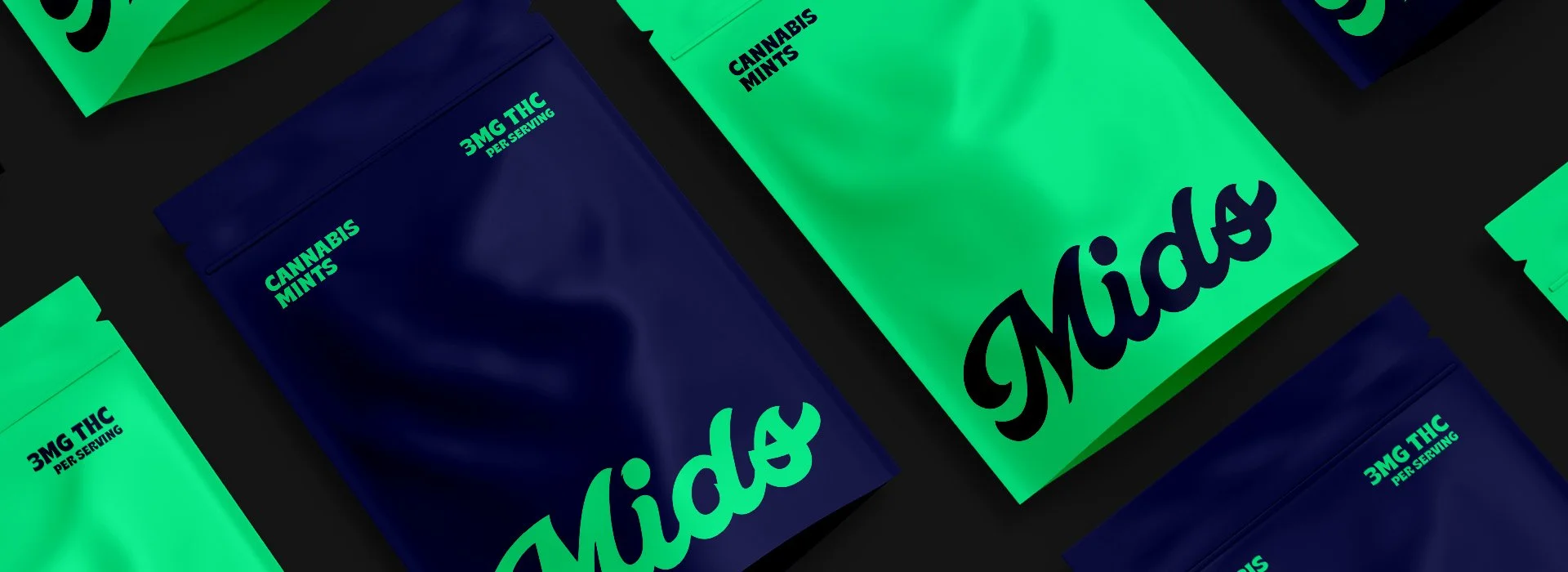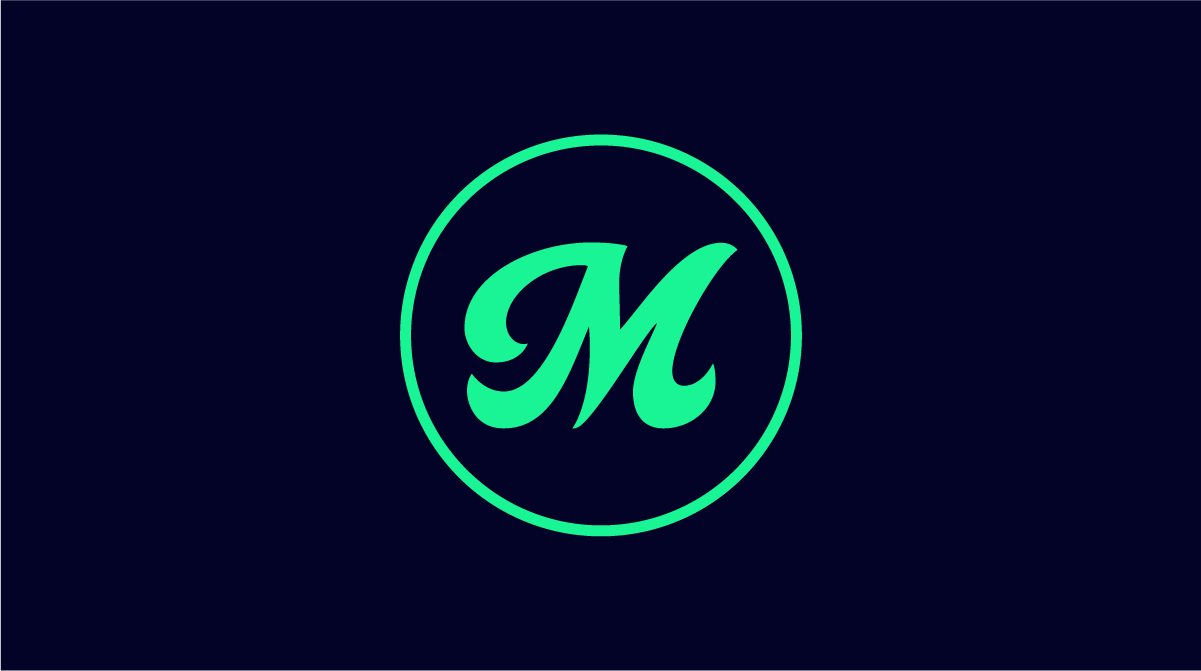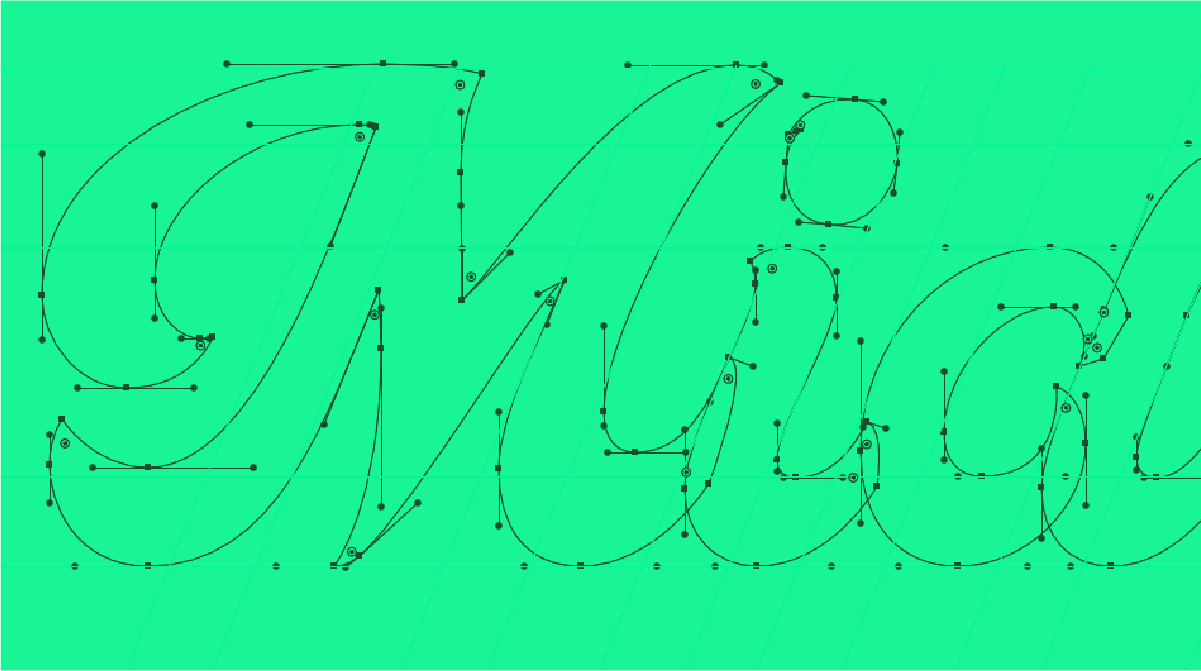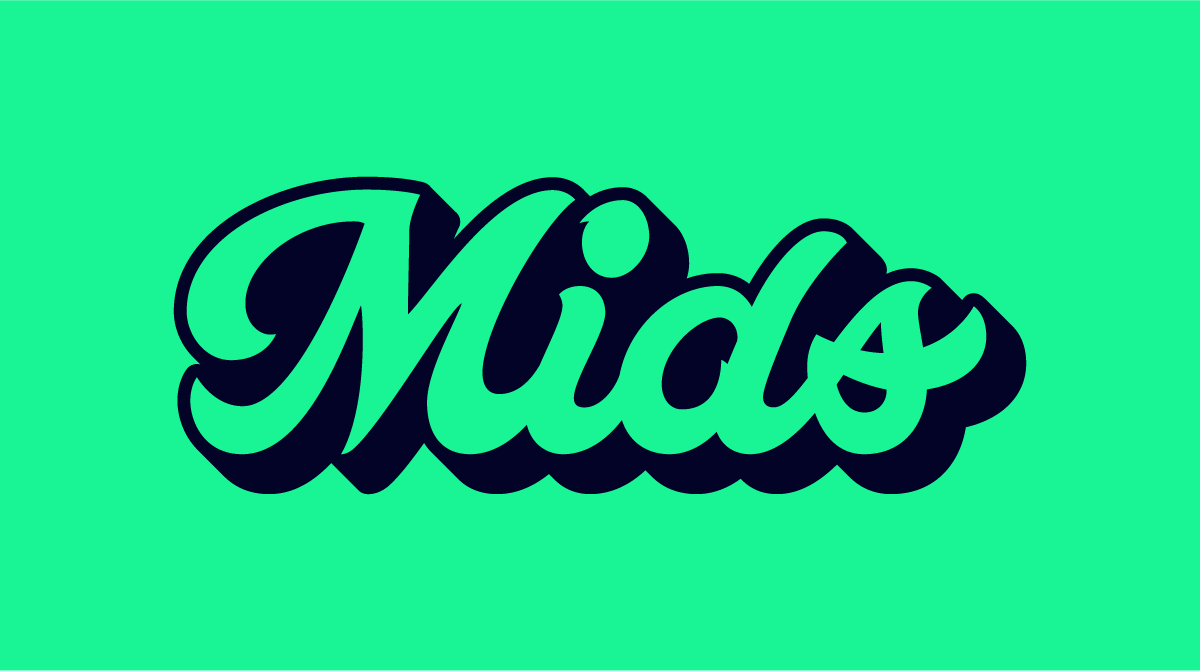
California-based marijuana dispensary Mids, founded by an ex–pro BMX rider. The founder’s background in extreme sports shapes the company’s energy, authenticity, and fearless approach, values that translate directly into the visual language. The community-driven culture around BMX and riding also informed the tone of the brand: bold, confident, and unapologetically real, reflecting a commitment to offering quality cannabis without pretension.
The logotype draws inspiration from classic graffiti hand styles found across California, paying homage to street art culture while refining it into something contemporary and polished. The result is a brand that balances authenticity with sophistication, bridging underground roots with a sleek, elevated look that stands out in the competitive dispensary market.